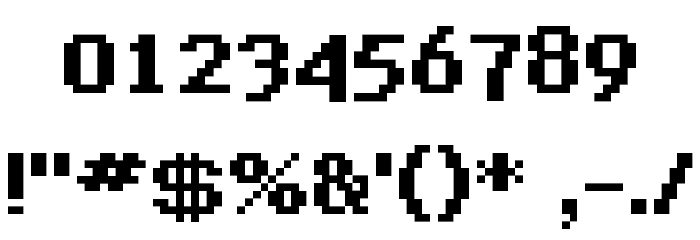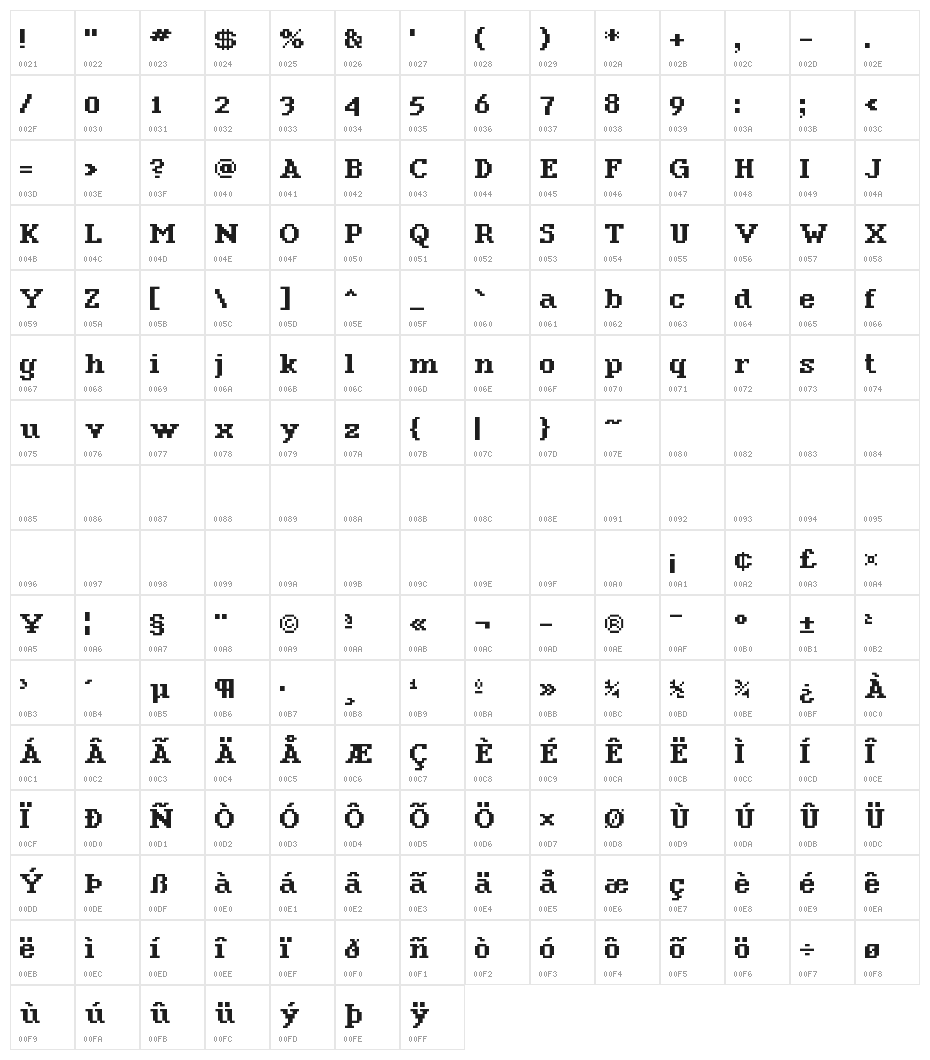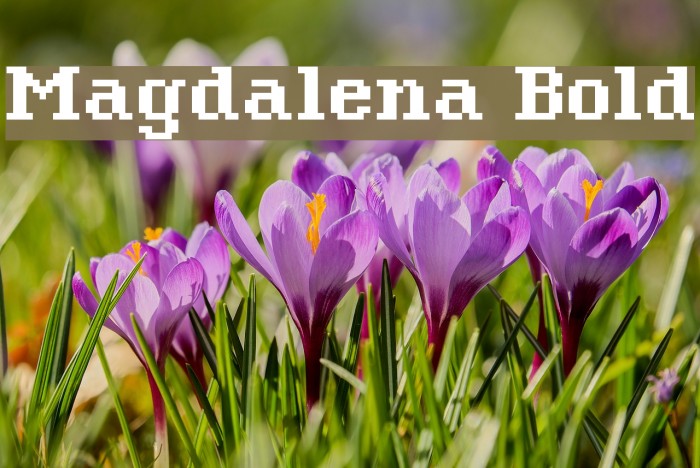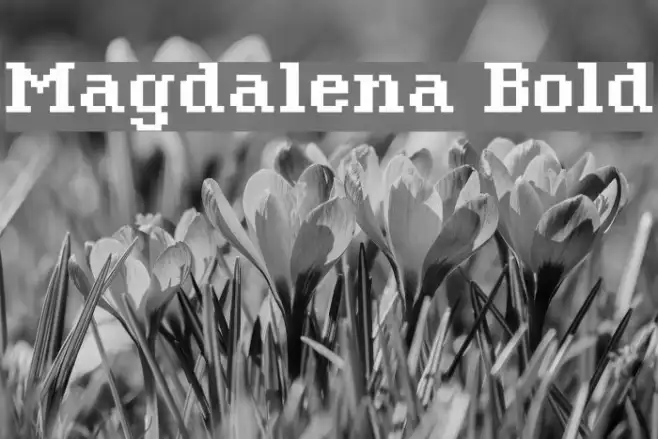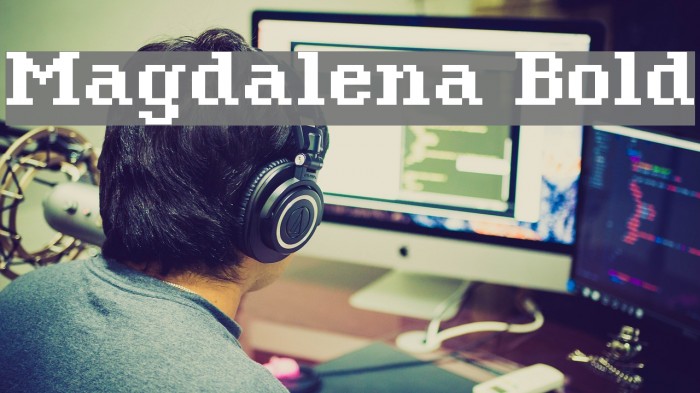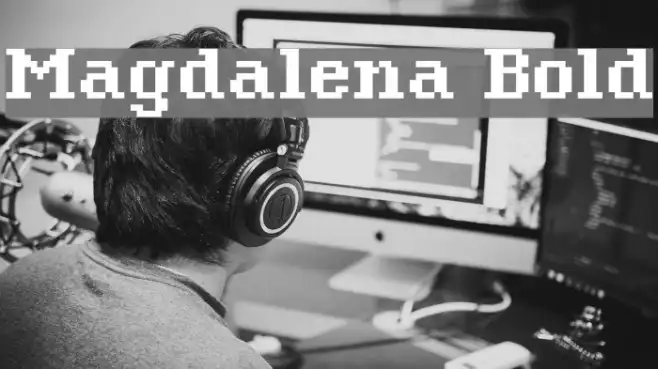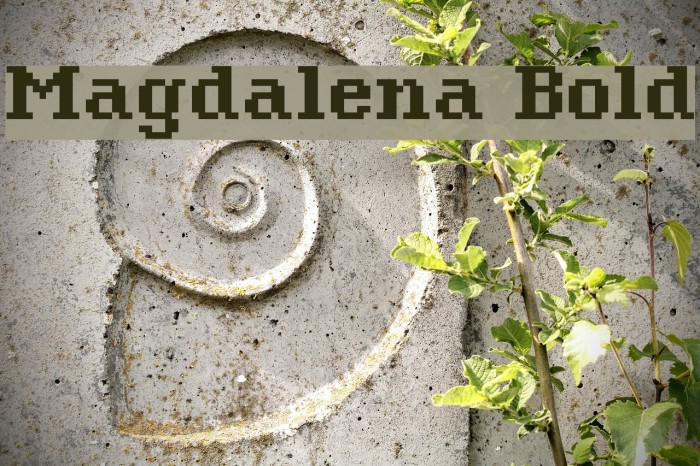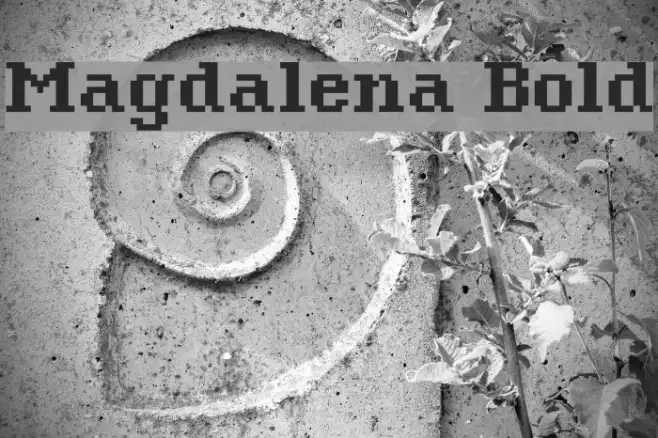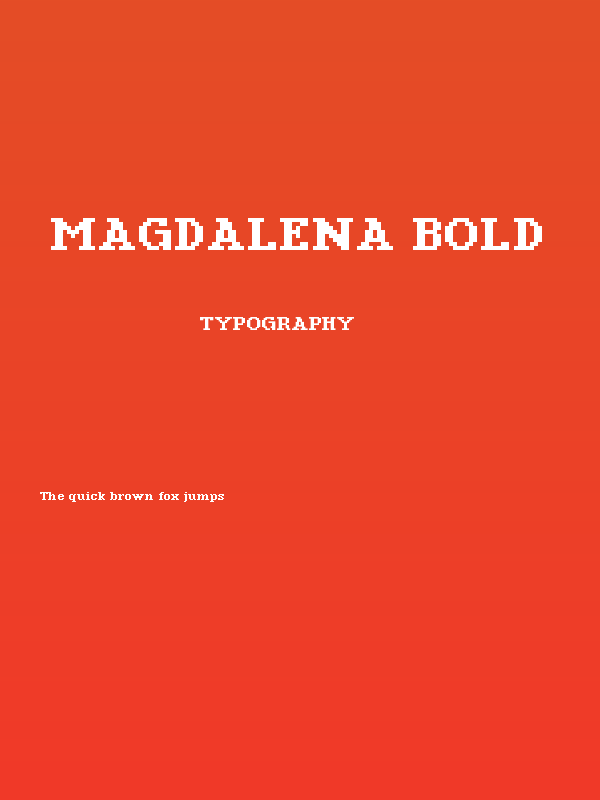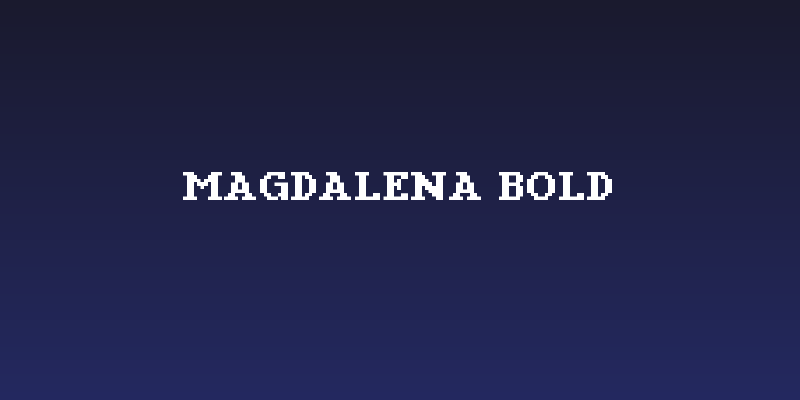
Magdalena Bold Font
Magdalena Bold Description
This font features a bold and robust design with a strong presence. Its characters are blocky and geometric, giving it a modern and industrial feel. The uppercase letters are particularly striking, with a uniform height and width that create a sense of stability and strength. The lowercase letters maintain the same boldness, ensuring consistency throughout the text. Numbers and special characters are equally bold, making them stand out clearly. The font's design is straightforward, with minimal embellishments, focusing on clarity and impact.
| Proposed Projects | Ideal for branding, posters, headlines, and any project requiring a strong visual impact. |